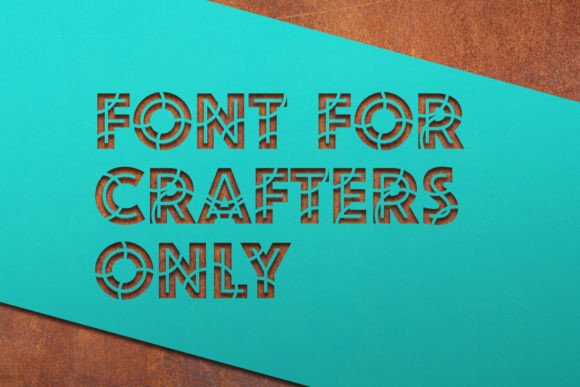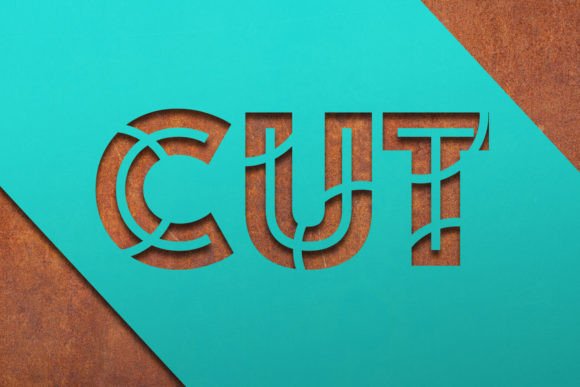
Introducing Cut Line Font: The Ultimate Choice for Laser and Paper Cutting
Are you a designer or crafter looking for a font that can help you create stunning projects with ease? Look no further than Cut Line Font, a specially designed font for laser and paper cutting. In this article, we’ll explore the features and benefits of Cut Line Font, and why it’s the perfect choice for your next craft project.
What is Cut Line Font?
Cut Line Font is a unique font designed specifically for laser and paper cutting. Its bold and sturdy letters are perfect for creating signs, stencils, cards, and other craft projects. The font’s design ensures that it stays together well when cut, making it ideal for intricate designs and detailed work.
Key Features of Cut Line Font
- Bold and Easy to Cut: The letters in Cut Line Font are bold and easy to cut out, making it perfect for laser and paper cutting.
- Smooth Edges and Clear Shapes: The font features smooth edges and clear shapes, ensuring that your projects look professional and polished.
- Strong and Durable: Cut Line Font is designed to stay together well when cut, making it perfect for intricate designs and detailed work.
Benefits of Using Cut Line Font
So, why choose Cut Line Font for your next project? Here are just a few benefits of using this amazing font:
- Perfect for Craft Projects: Cut Line Font is ideal for craft projects like signs, stencils, cards, and more.
- High-Quality Results: With Cut Line Font, you can achieve high-quality results that look professional and polished.
Tips for Using Cut Line Font
Here are a few tips for getting the most out of Cut Line Font:
- Choose the Right Size: Make sure to choose a size that’s suitable for your project. Larger sizes are perfect for signs and posters, while smaller sizes are better for cards and stencils.
- Experiment with Different Materials: Cut Line Font works well with a variety of materials, including paper, vinyl, and even wood.
- Combine with Other Fonts: Don’t be afraid to combine Cut Line Font with other fonts to create unique and interesting effects.
| Font Name | Cut Line Font |
| Author | ochakov |
Cut Line Font is a game-changer for designers and crafters who want to create stunning projects with ease. With its bold and sturdy letters, smooth edges, and clear shapes, it’s the perfect choice for laser and paper cutting. Whether you’re making signs, stencils, cards, or other craft projects, Cut Line Font is sure to deliver high-quality results. So why wait? Download Cut Line Font today and start creating amazing projects!
- What is Cut Line Font? Cut Line Font is a special font designed for laser and paper cutting.